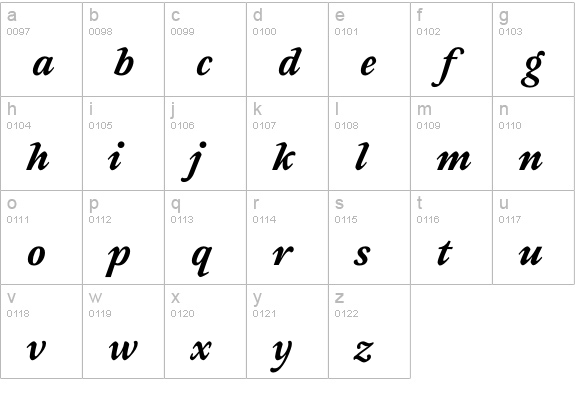
Introducing Sovereign-BlackItalic, a captivating and elegant font that effortlessly combines sophistication with a touch of modernity. This exquisite typeface is perfect for adding a touch of luxurious flair to any design project. With its sleek and slanted letterforms, Sovereign-BlackItalic exudes confidence and refinement. The unique and distinctive nature of Sovereign-BlackItalic sets it apart from other fonts. Its boldness and flair make it a standout choice for headlines, titles, and branding materials. Whether used in print or digital media, this font commands attention and leaves a lasting impression on the reader. One of the most enticing aspects of Sovereign-BlackItalic is that it is available free of charge. Yes, you heard it right, absolutely free. You can easily download this extraordinary font at FontsMarket.com, a renowned platform for high-quality fonts. With just a few clicks, you can infuse your designs with the elegance and sophistication that Sovereign-BlackItalic offers. The versatility of Sovereign-BlackItalic is unparalleled. This font seamlessly adapts to various design styles and purposes, making it a go-to choice for graphic designers, branding agencies, and creative individuals alike. Whether you're working on a fashion magazine, a high-end product packaging, or a luxurious website, Sovereign-BlackItalic adds that extra touch of refinement that elevates your design to a whole new level. The carefully crafted letterforms of Sovereign-BlackItalic exude an air of exclusivity and authority, making it ideal for projects that require a sense of prestige and professionalism. Its rich and well-defined curves create a harmonious balance between elegance and legibility, ensuring that your message is conveyed with utmost clarity. In a world where attention to detail matters, Sovereign-BlackItalic offers a solution that is both visually striking and functionally versatile. So why settle for mediocre fonts when you can have Sovereign-BlackItalic for free? Download this extraordinary font today at FontsMarket.com and embark on a journey of creativity and sophistication.